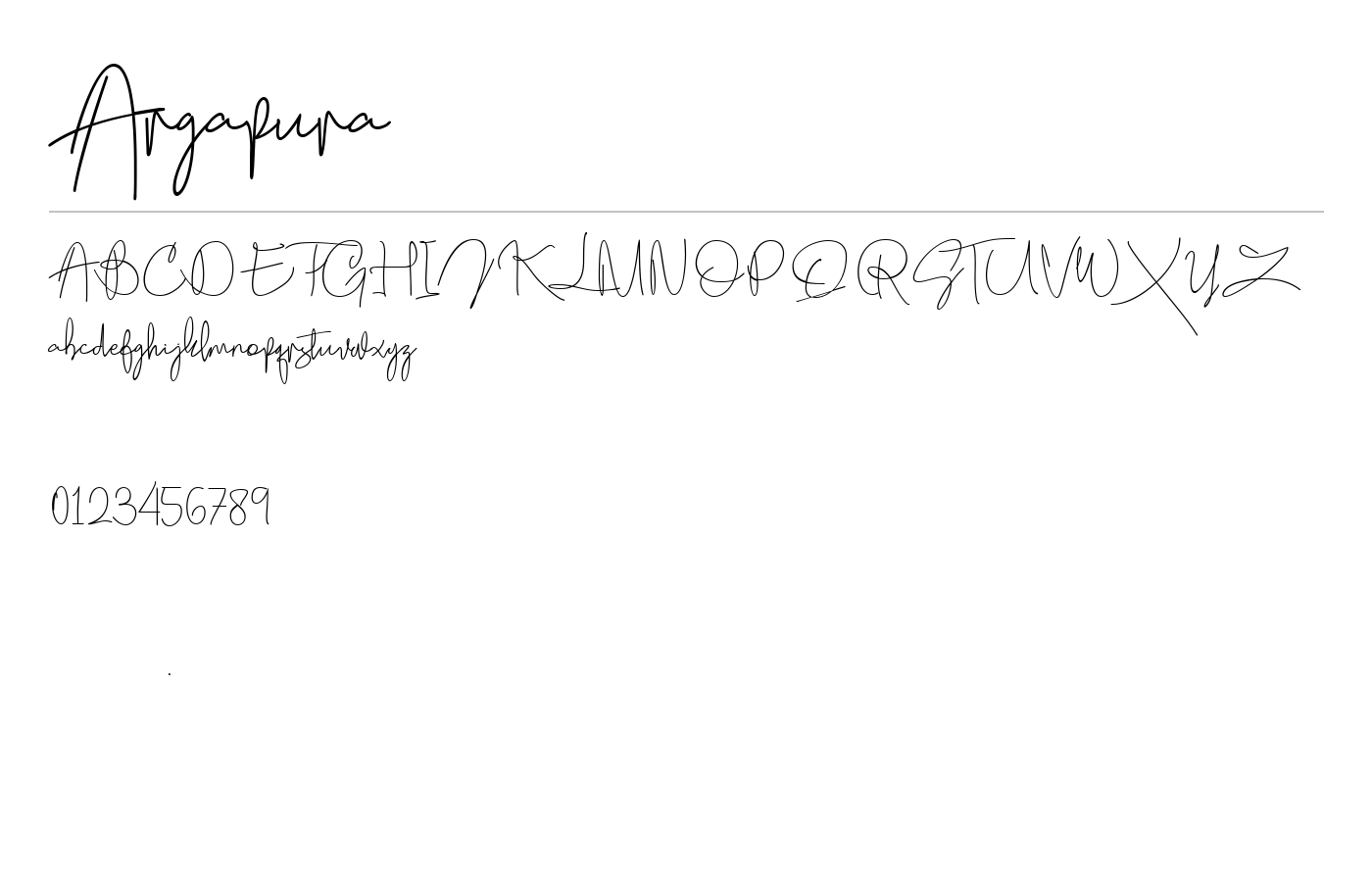
Argapura is a delicate and elegant handwritten script font that features thin, flowing lines with a natural, casual touch. Its tall, slender letterforms and playful curves give it a stylish yet approachable personality, making it ideal for branding, invitations, and creative projects seeking a personal and artistic feel. This font adds a unique and sophisticated flair while maintaining readability in decorative contexts.
Argapura Font
About Argapura Font